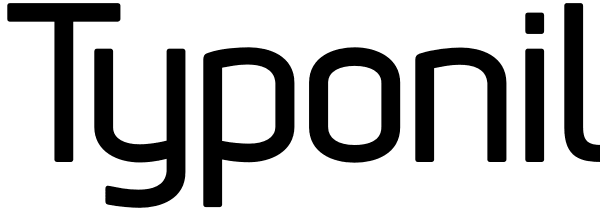
Typonil
TYPONIL Font Family includes eight fonts in four weights; normal and italic. The font family is characterized by its rounded corners, soft views thanks to its optimized kernings, esthetical design and great legibility in both big and small type...